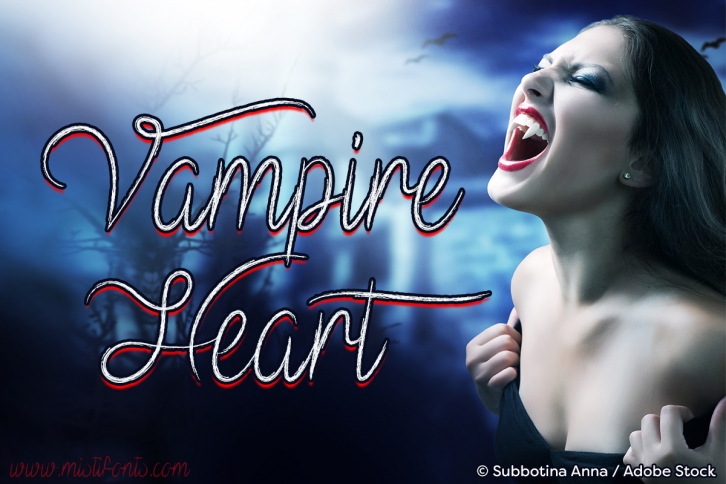
Vampire Heart is a beautiful font that was designed by Misti Fonts. It's a great choice for designers and creatives who need such a font. It was released on December 7, 2017 and the file size is 3.7 MB. Vampire Heart may give a more youthful, expressive and casual look to your project. It is a very beautiful, refined, elegant, and high-quality font.